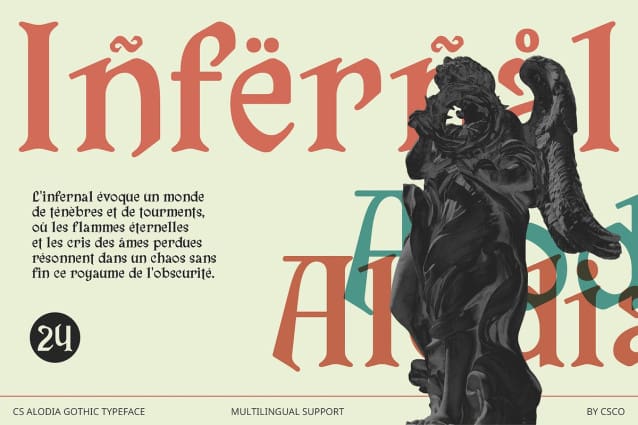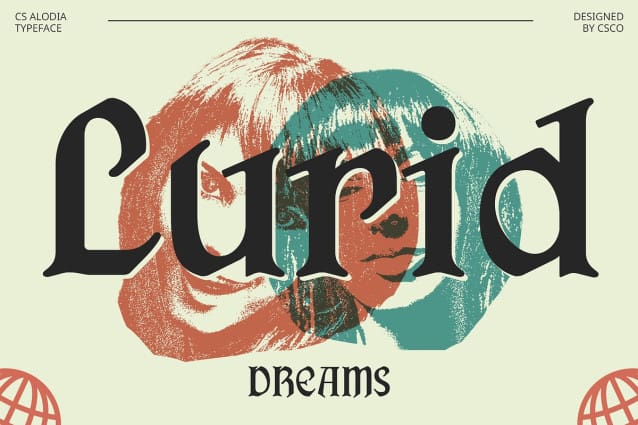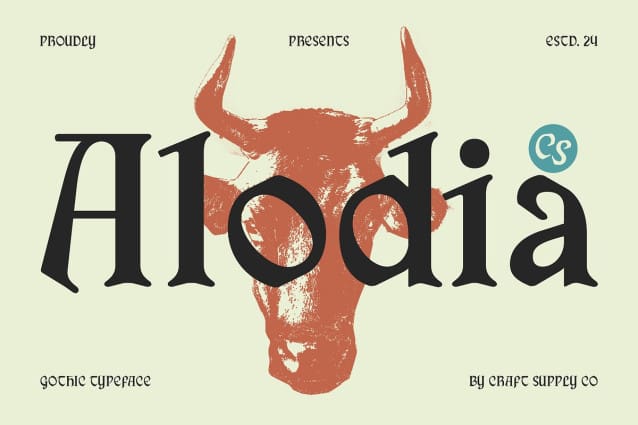
CS Alodia Font
CS Alodia Font is a Gothic display serif font that captures the essence of historical grandeur with its bold, angular letterforms. Its intricate serifs and strong, emphatic strokes offer a dramatic, medieval-inspired aesthetic that elevates any design. With its ornate detailing, CS Alodia brings a sense of timeless elegance and sophistication, making it ideal for projects that seek to convey a sense of classic charm and historical depth.
Bold and Angular Letterforms The font’s bold and angular shapes are meticulously crafted to provide a striking visual presence. CS Alodia’s Gothic style not only enhances readability but also infuses your designs with a powerful, majestic character. The sharp, pronounced serifs and dynamic strokes create a sense of movement and drama, adding a distinctive flair to headlines, banners, and other high-visibility elements.
Ideal for High-Impact Designs Whether used for compelling headlines, captivating posters, or impactful branding, CS Alodia ensures that your designs stand out with its unique and sophisticated look. The font’s combination of historical intricacy and bold design elements makes it perfect for high-impact projects that require a touch of classic elegance and a memorable visual impression. Embrace the grandeur of the past with CS Alodia and bring a touch of medieval majesty to your modern designs.